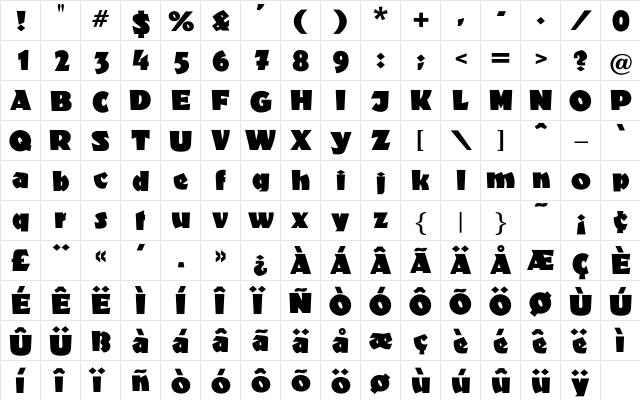
Bravour Regular
Design Context for Bravour Typeface
Bravour is a composed and adaptable typeface that performs quietly and consistently across a wide range of design contexts.